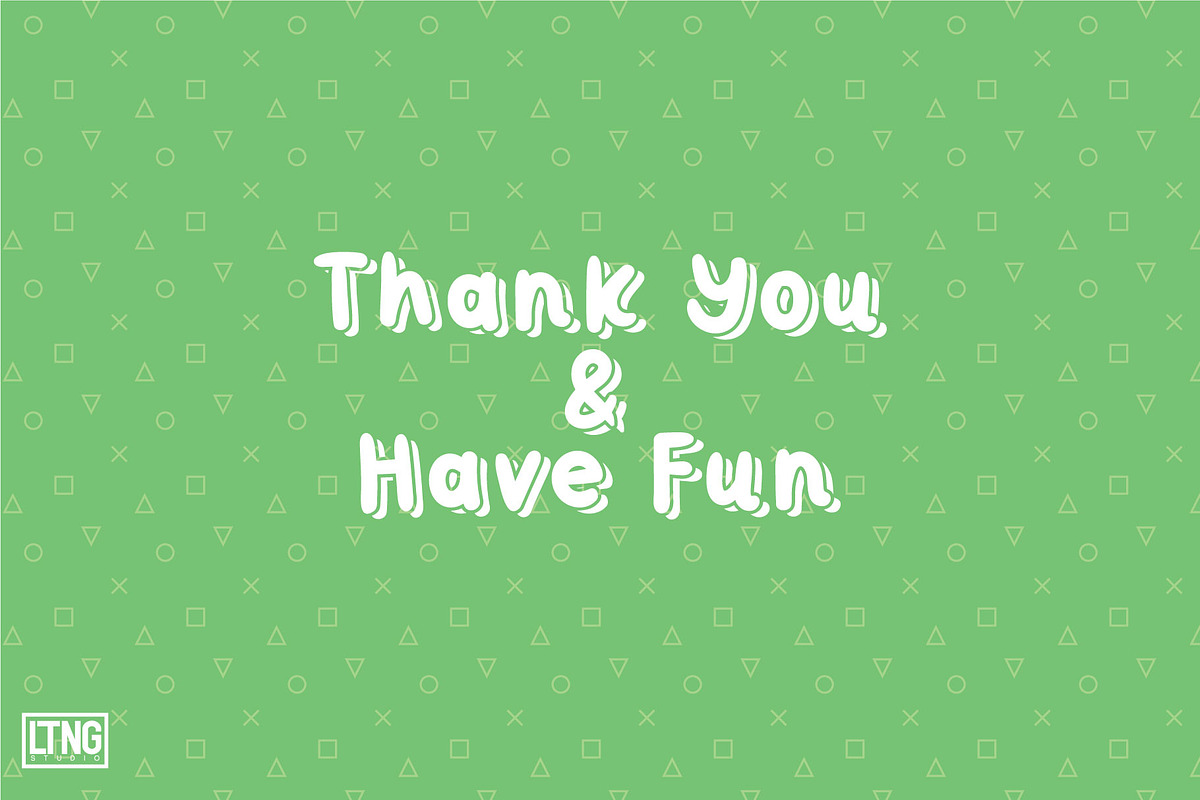
Little Kodomo Playful type family
Introducing- Little Kodomo -Playful type family of 11 fonts
Little Kodomo is a cute & playful font family with Uppercase, Lowercase and multi language. With 11 various of font family easy to combine and make great composition. Make your own creation with Little Kodomo into magazine cover, poster, cards, wedding invitation, advertisements, quotes and more. Little Kodomo includes :
- Little Kodomo regular
- Little Kodomo italic
- Little Kodomo outline
- Little Kodomo outline italic
- Little Kodomo semi light
- Little Kodomo semi bold
- Little Kodomo condensed
- Little Kodomo shadow 2
- Little Kodomo shadow 3
- Little Kodomo offset outline